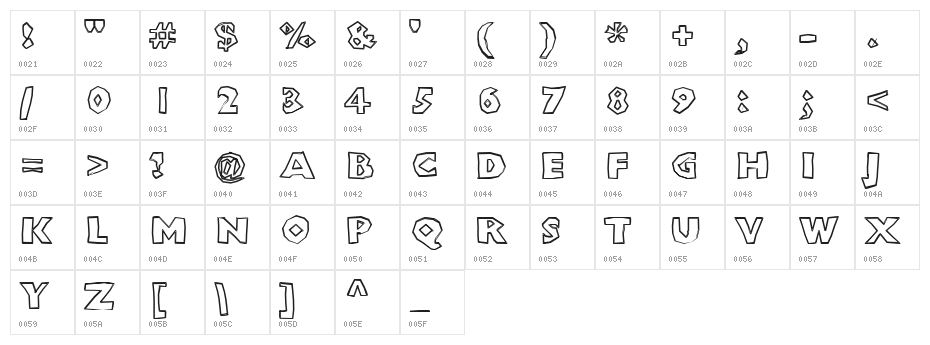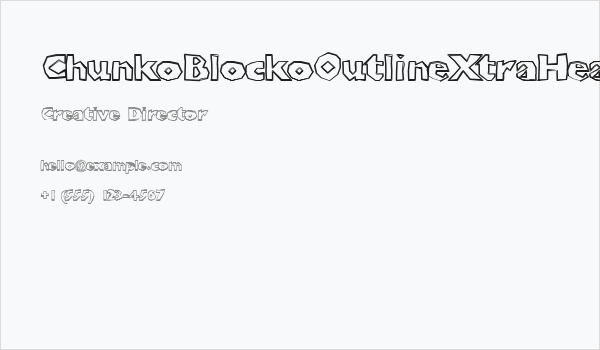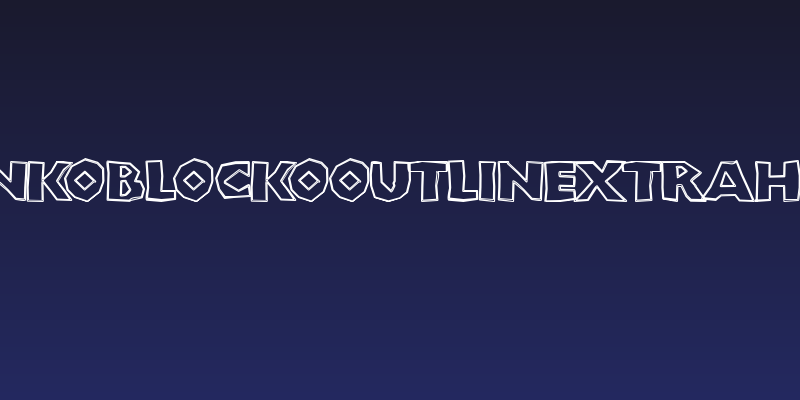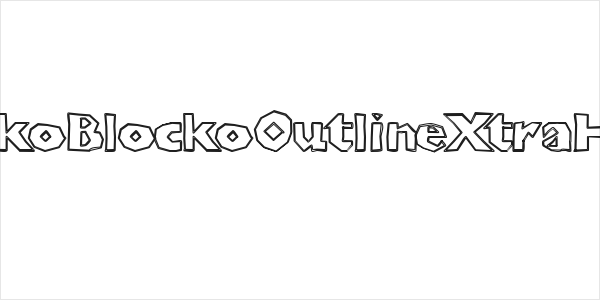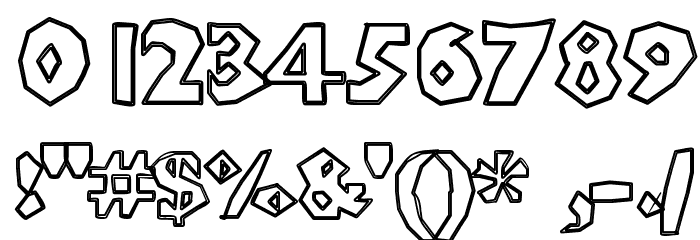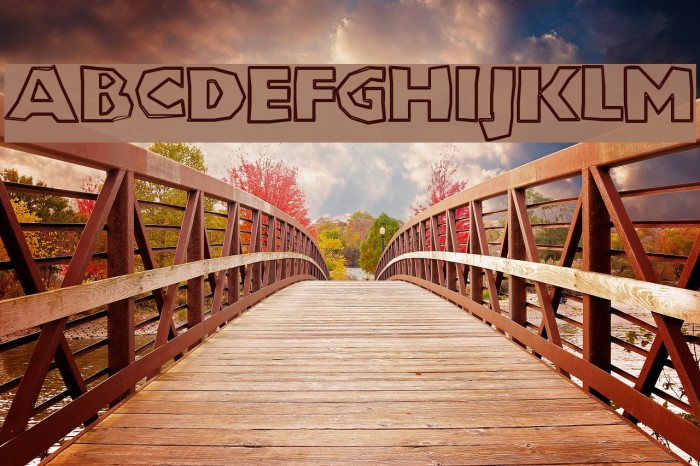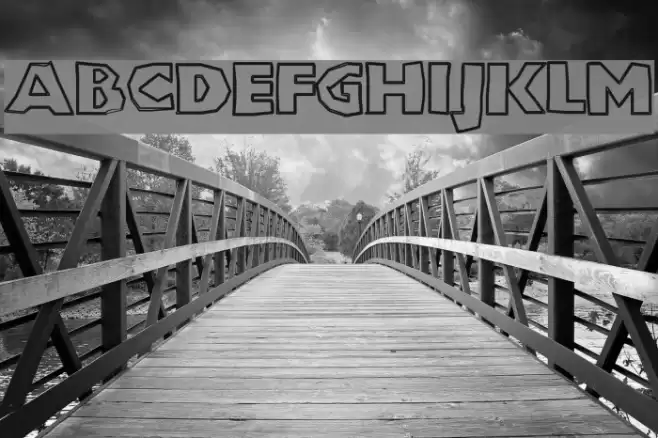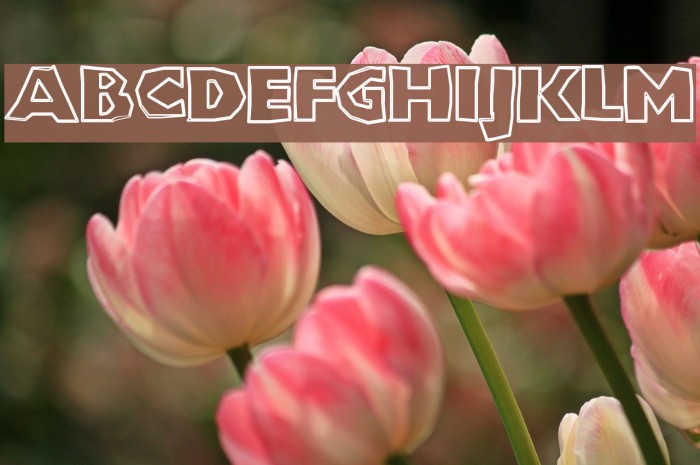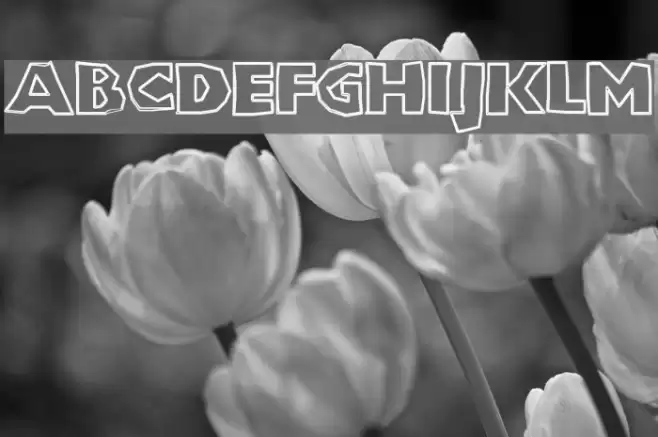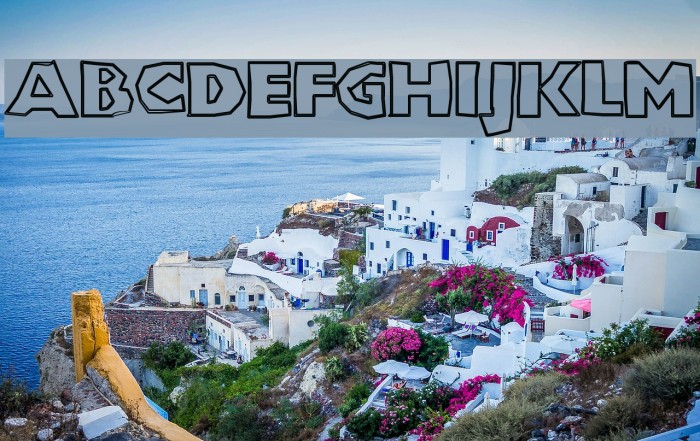
ChunkoBlockoOutlineXtraHeavy Font
ChunkoBlockoOutlineXtraHeavy Description
This font features a bold, outlined style with a playful and chunky appearance. The characters are heavily outlined, giving them a strong presence and making them stand out. The edges are slightly irregular, adding a hand-drawn, organic feel. The uppercase and lowercase letters maintain a consistent weight and style, while the numbers and special characters follow the same design principles. This font is highly decorative and eye-catching, suitable for projects that require a bold statement.
| Proposed Projects | Ideal for posters, children's book covers, playful branding, and any design needing a bold, fun touch. |